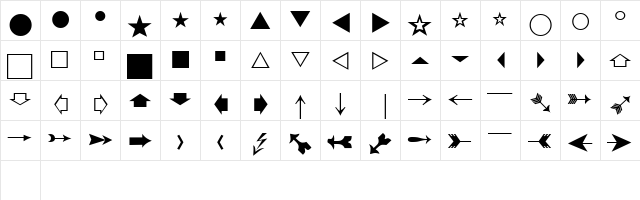
PigraphATT Regular
Design Context for PigraphATT Typeface
PigraphATT is a composed and adaptable typeface that performs quietly and consistently across a wide range of design contexts.